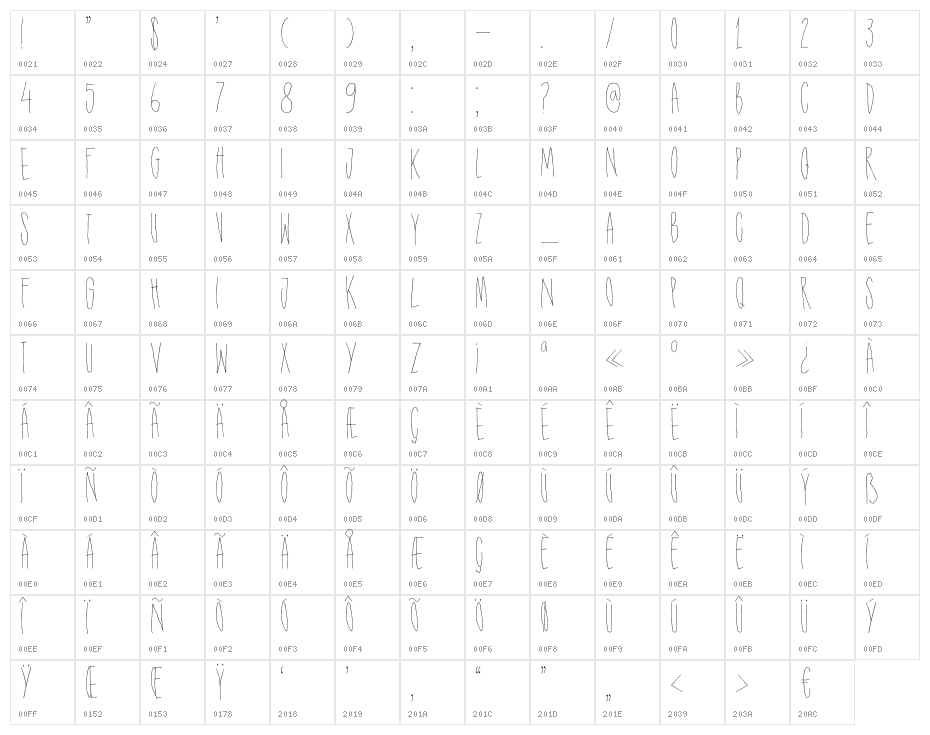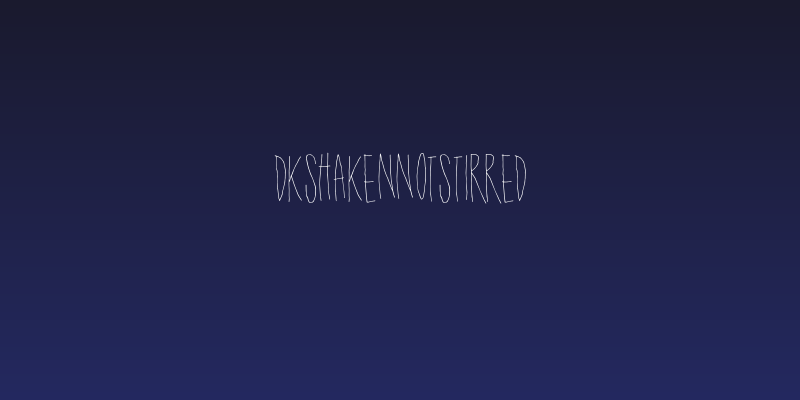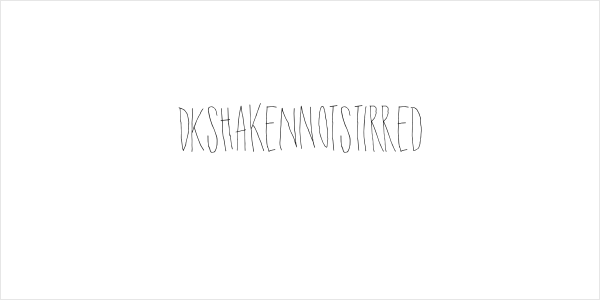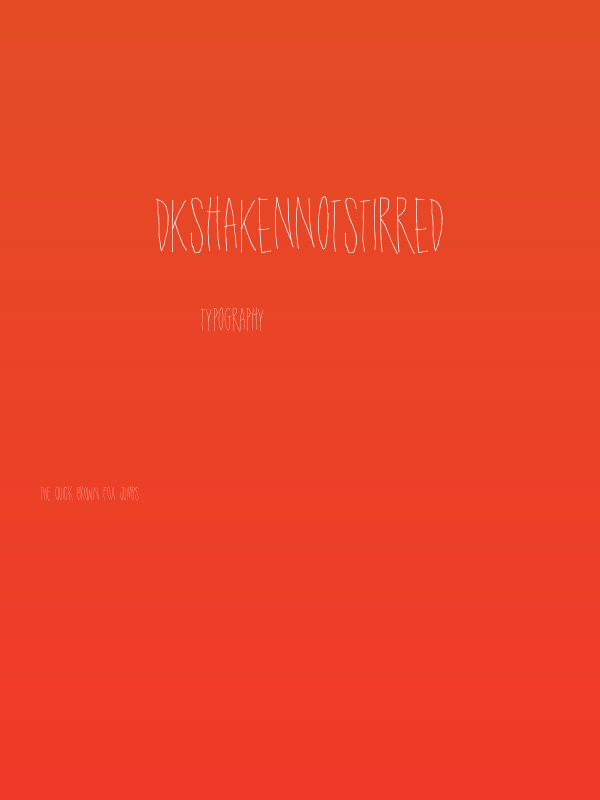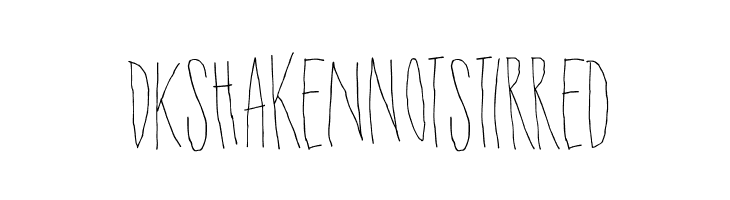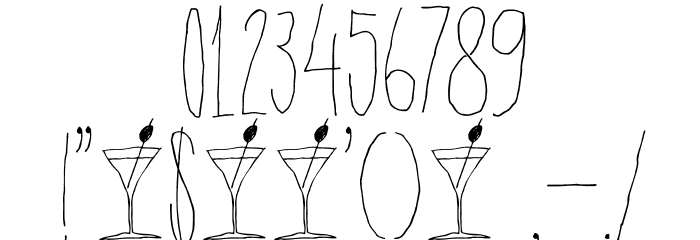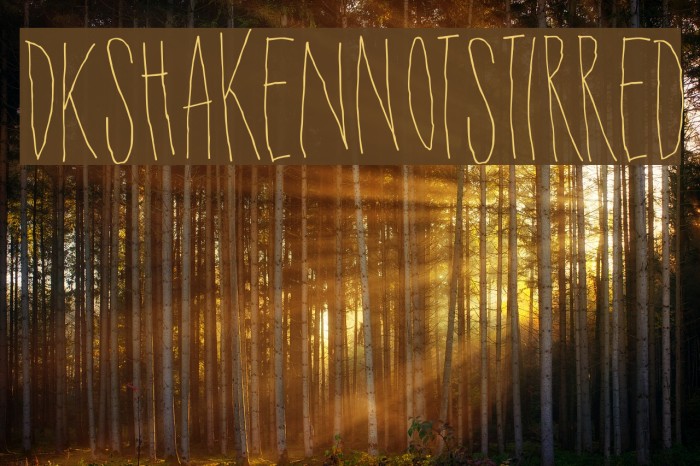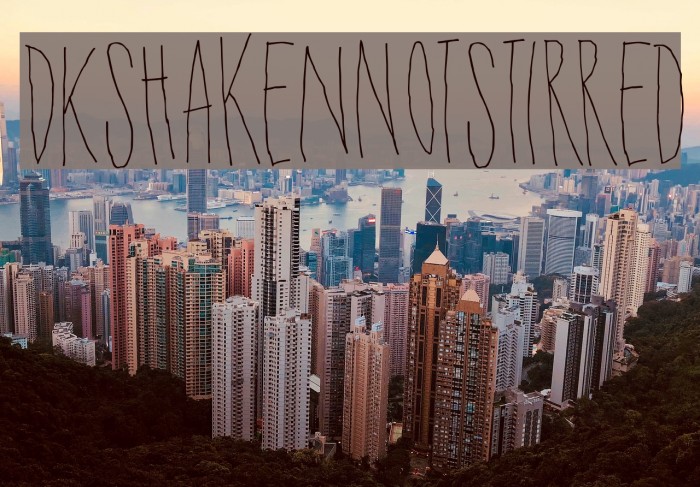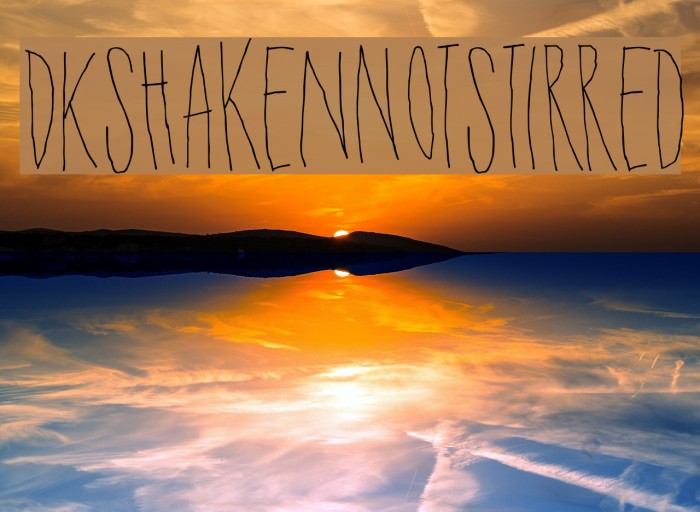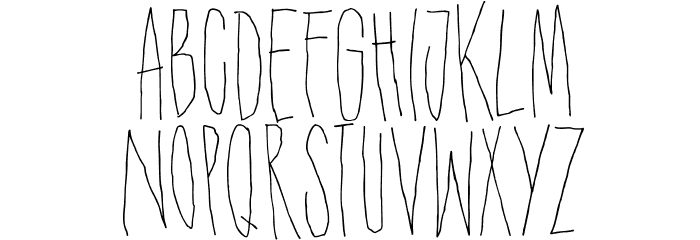
DKShakenNotStirred Font
This font features a playful and quirky handwritten style, characterized by its tall, narrow letterforms and irregular lines that give it a casual, informal appearance. The uppercase and lowercase letters maintain a consistent height, creating a cohesive look across the alphabet. Numbers and special characters follow the same whimsical design, adding to the font's unique personality. The overall design is reminiscent of a hand-drawn sketch, making it suitable for projects that require a personal touch or a sense of individuality.
| Proposed Projects | Ideal for greeting cards, invitations, children's books, and creative branding projects. |